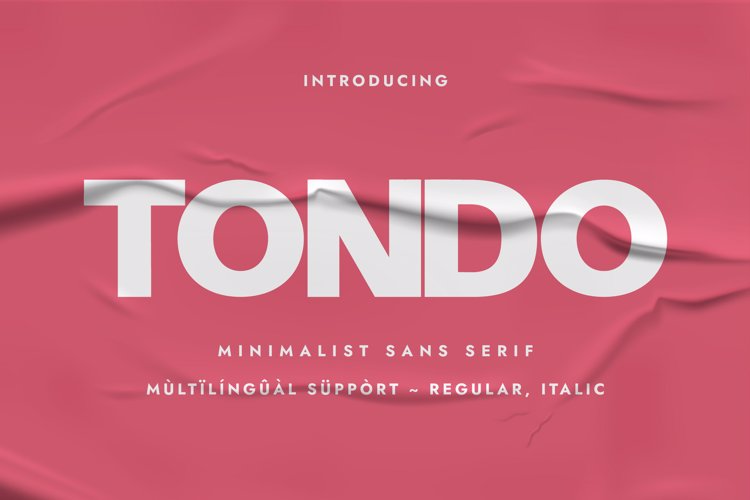
TONDO Font
๐จ Font Name: Tondo by Minimalist Art Studio
๐จ Font Description: Tondo is a fat sans serif with minimalist punch and multilingual supportโperfect for packaging, fashion branding, and modern editorial design.
โ Complete Latin set + multilingual diacritics
โ Alternates, stylistic sets & ligatures
โ Numbers, small caps, and extended punctuation
โ Bonus italics and family styles